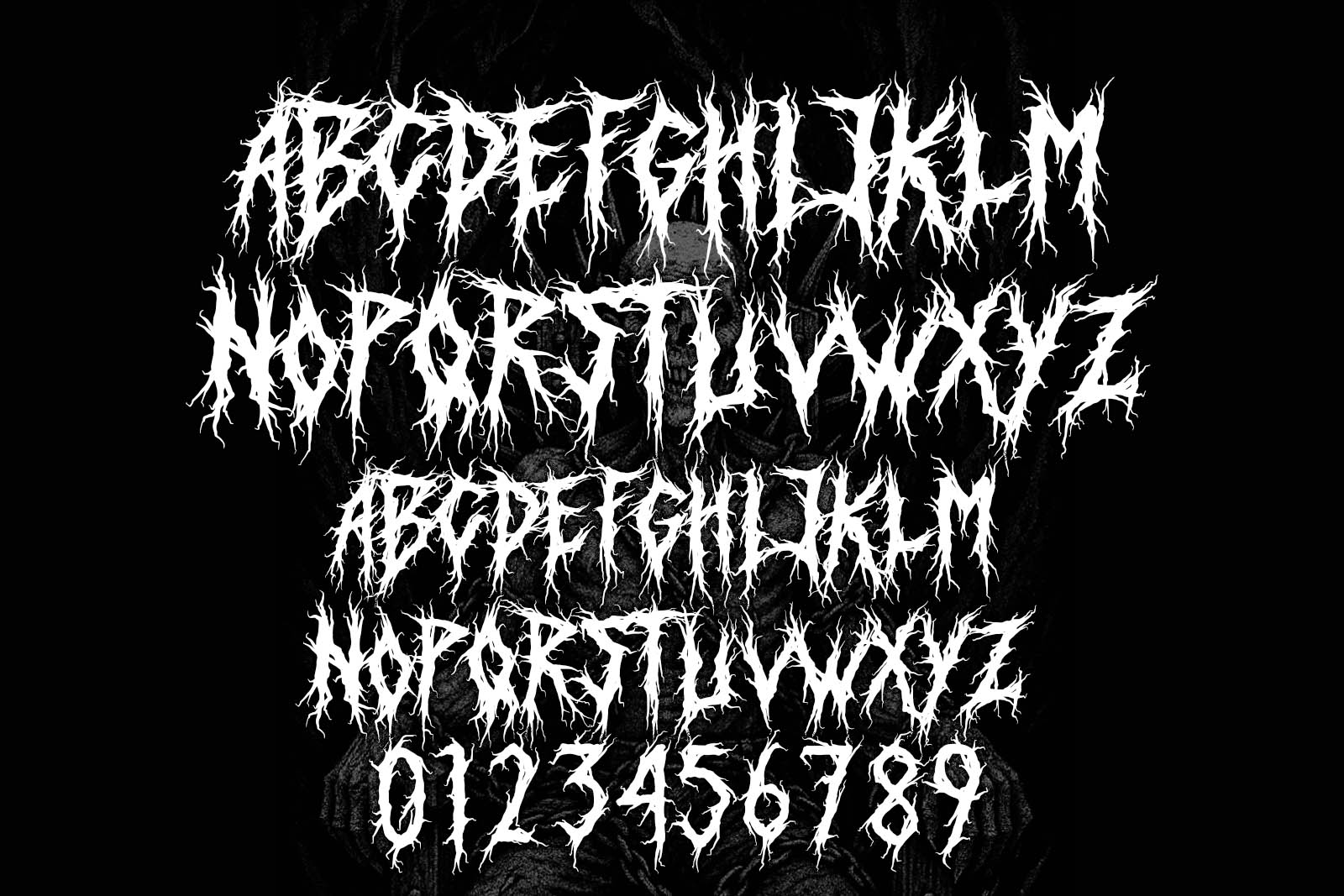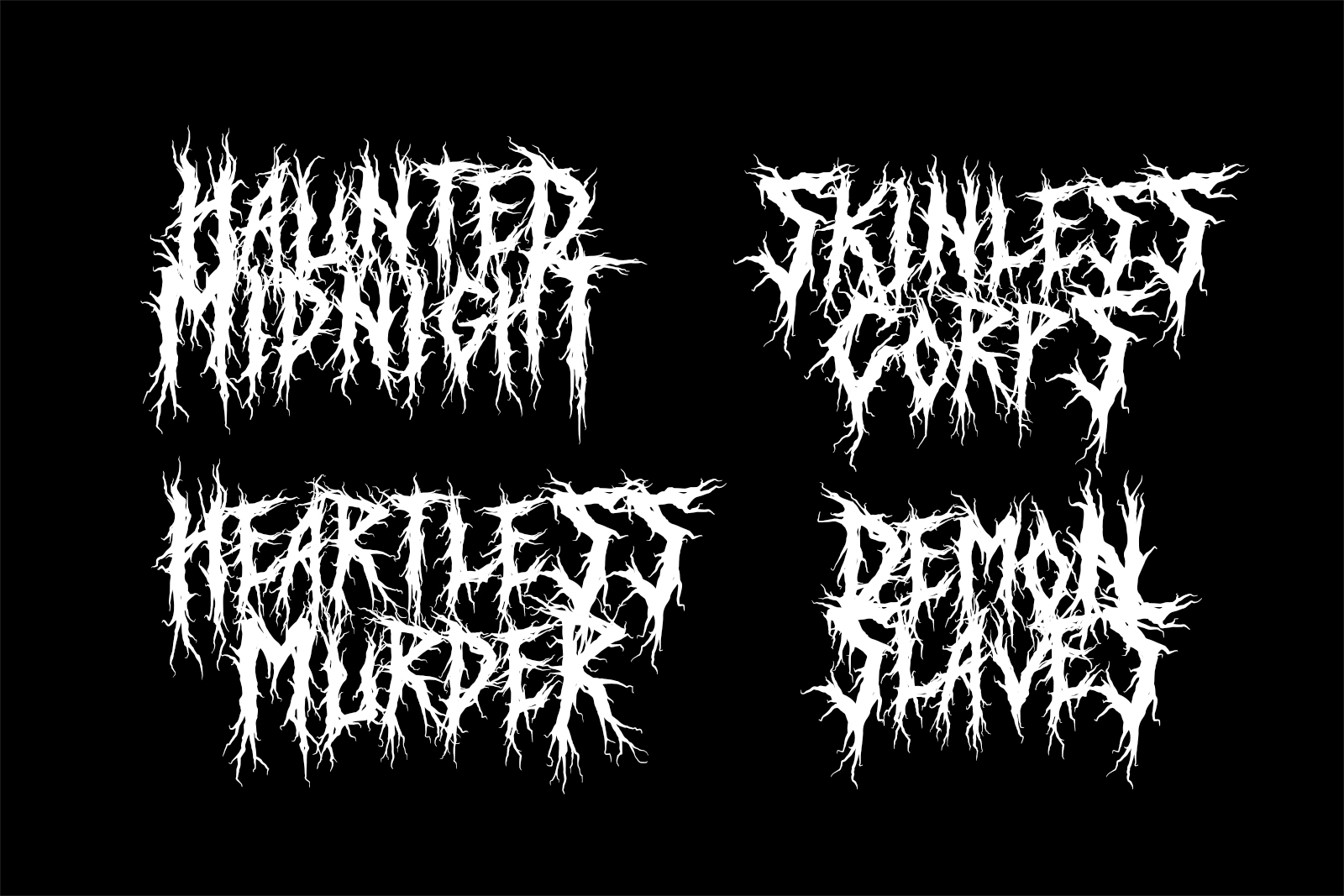
Killer History is a brutally raw and aggressively designed black metal font forged in the spirit of chaos and darkness. With tangled, thorn-like letterforms that resemble tree roots soaked in blood and decay, this font is a fierce tribute to the underground black metal and death metal scenes. Designed exclusively by the creators at BlackMetalFont.com, Killer History delivers an unrelenting presence that demands to be seen—and feared.
Every letter is crafted with wild, organic strokes that evoke a sense of violence and dread, making it perfect for extreme metal band logos, underground zines, horror posters, album art, and any design that needs to scream brutality and rebellion. It’s not just a font—it’s a visual weapon.
Killer History doesn't aim for readability. It aims for domination. It’s unapologetically brutal, messy, and chaotic—true to the black metal roots. This is the kind of typeface that turns heads, provokes emotion, and sets the tone for raw, unfiltered creative expression.
Features:
Brutal, tangled letterforms perfect for black metal and death metal
High-impact design for extreme logos and horror visuals
Hand-drawn chaos aesthetic, organic and unpredictable
Best used for band names, cover art, and dark-themed branding